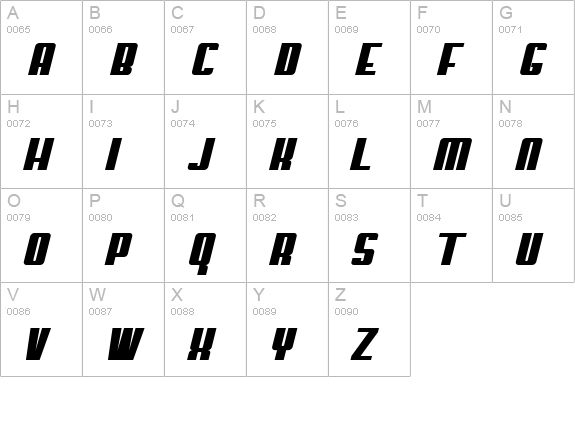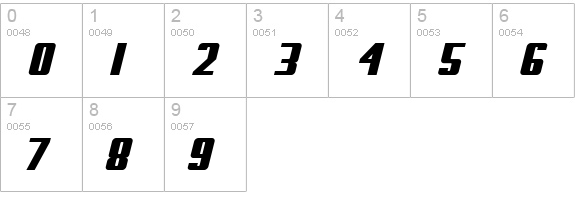
My Puma Oblique Font Details
My Puma Oblique is a distinctive, italic variant in the My typeface family \xE2\x80\x94 well suited to design and typography projects.
My Puma Oblique font is a sleek and modern typeface that exudes elegance and sophistication. With its stylish slanted design, this font is perfect for adding a touch of flair to your projects. The clean lines and unique angles of My Puma Oblique make it a versatile choice for a wide range of design applications, from branding to editorial design. What's even better is that My Puma Oblique is available for free download at FontsMarket.com. Now you can elevate your designs with this stunning font without breaking the bank. Don't miss out on the opportunity to add My Puma Oblique to your font collection today and take your design projects to the next level.